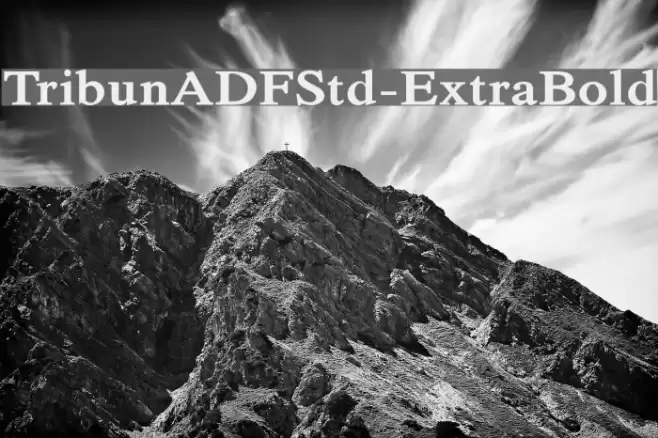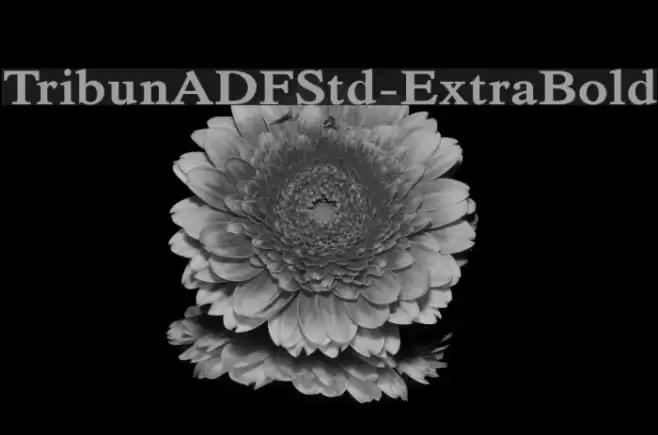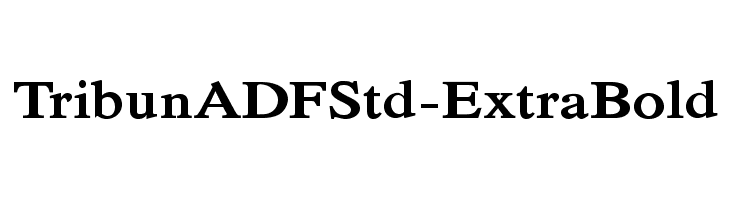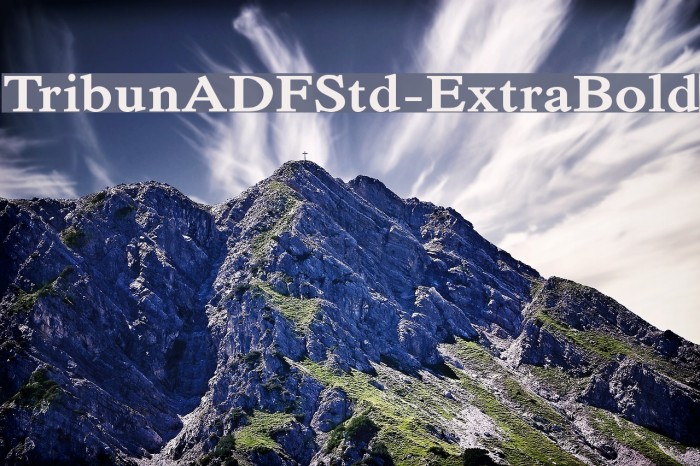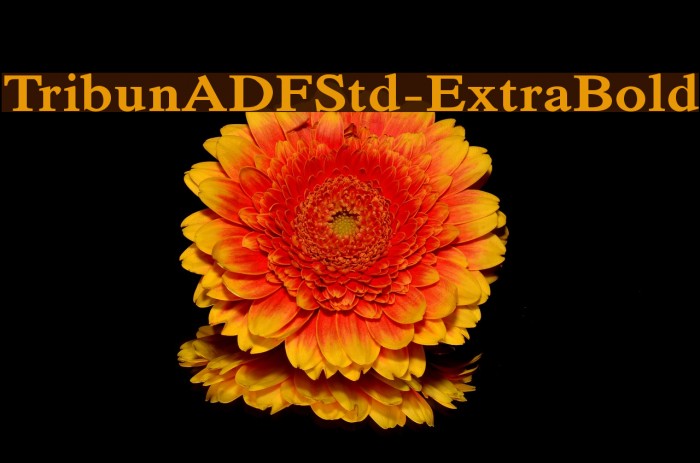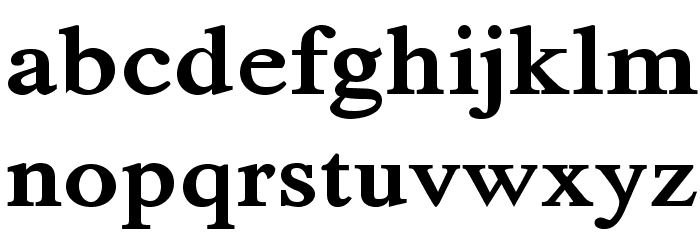
TribunADFStd-ExtraBold Font
TribunADFStd-ExtraBold Description
This font exhibits a strong and authoritative presence with its bold and pronounced strokes. The serifs are sharply defined, adding a classic touch to the overall design. The uppercase letters stand tall and confident, while the lowercase letters maintain a balanced and harmonious flow. The numerals are clear and robust, ensuring readability. Special characters are crafted with precision, enhancing the font's versatility. This typeface is ideal for making a statement, combining traditional elements with a modern flair.
A bold serif font with strong, classic features and modern versatility from Thick fonts.
- Proposed Projects: Ideal for headlines, editorial design, branding, and advertising where a strong, authoritative presence is needed.
- Overall Style: Classic
- Use Case: Headlines, Logos, Editorial Design